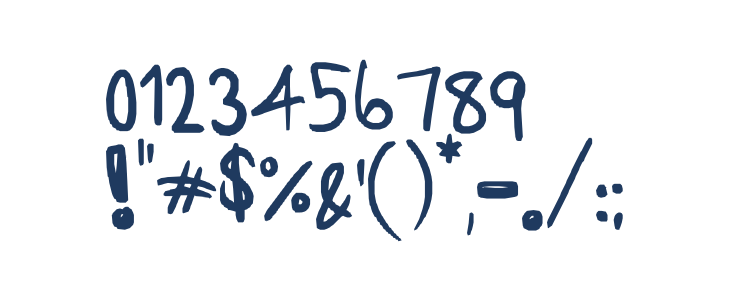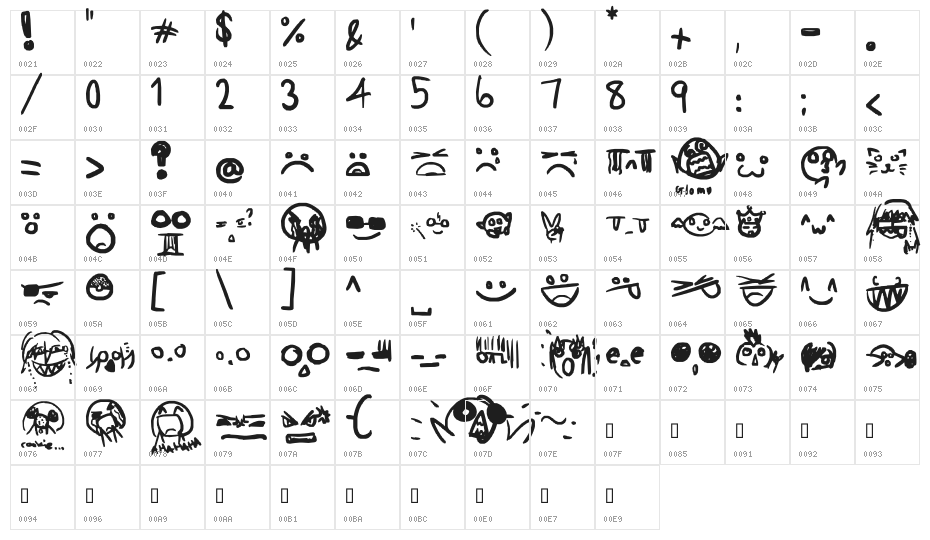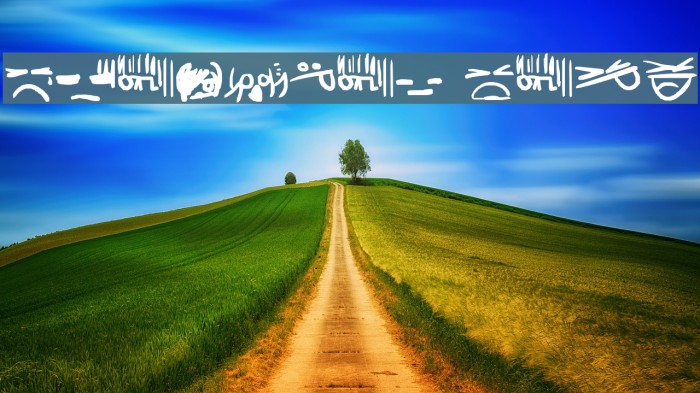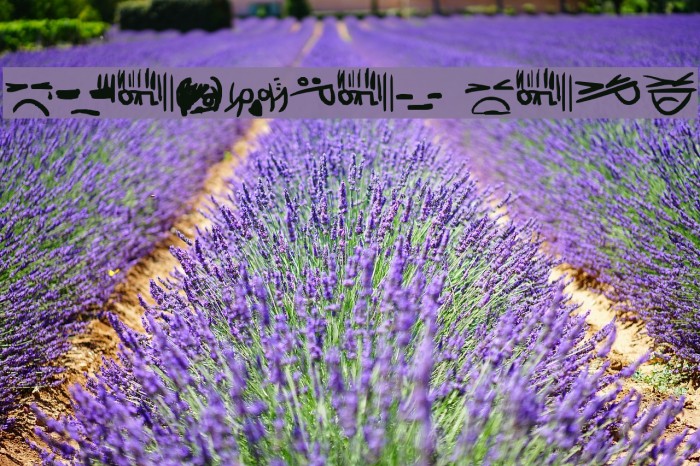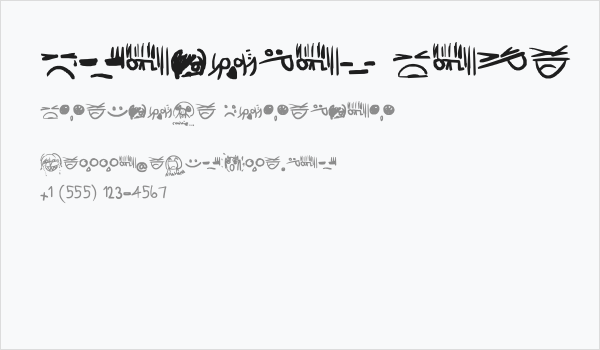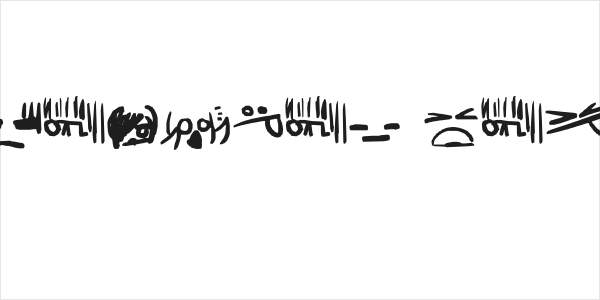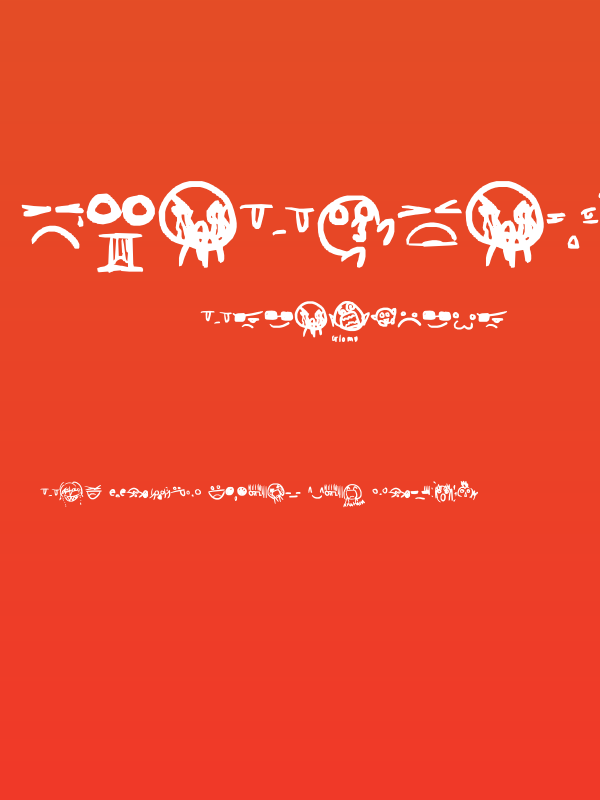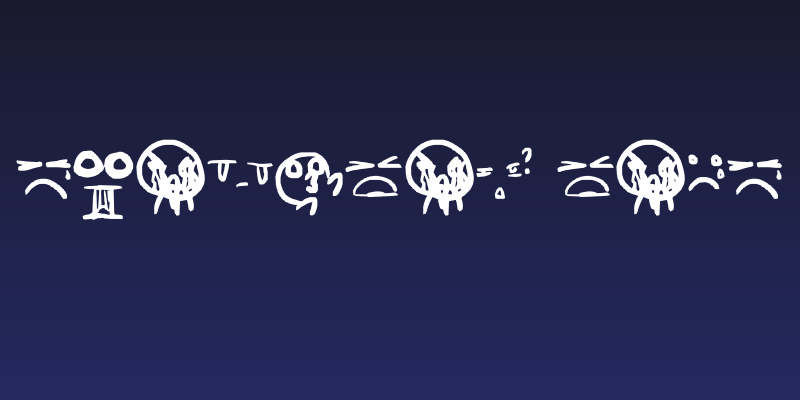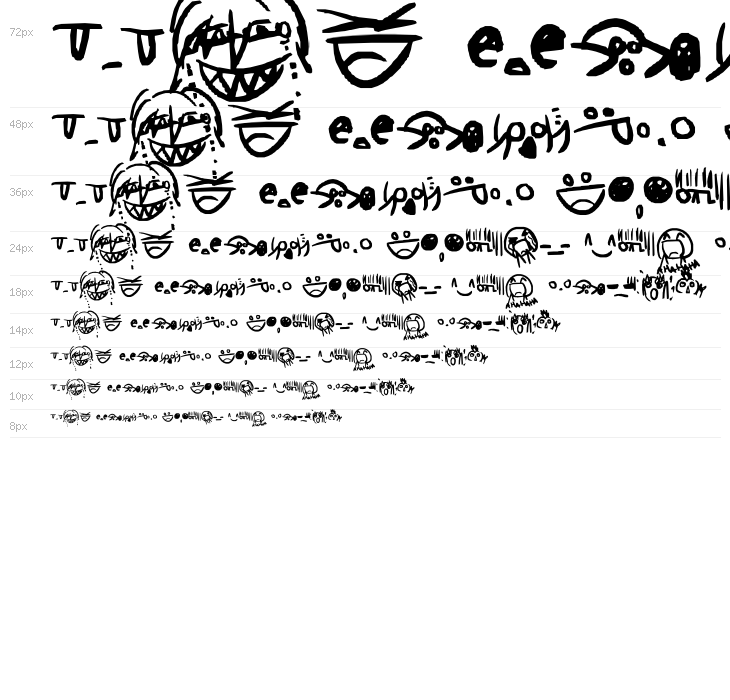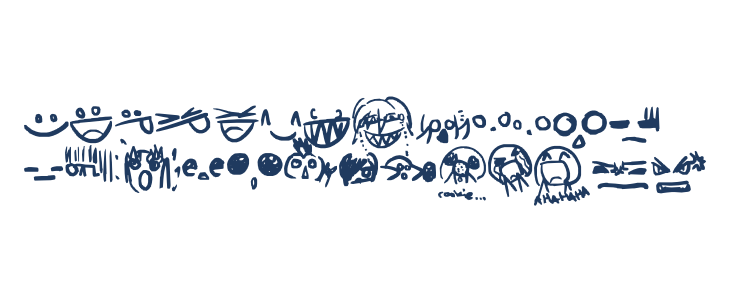
Emoticon Code Font
Emoticon Code Description
This is not a traditional font but rather a collection of emoticons and symbols that resemble a playful and expressive style. Each character is represented by a unique emoticon, showcasing a variety of emotions and expressions. The design is whimsical and artistic, with a hand-drawn appearance that adds a personal touch. The numbers and special characters are more structured but still maintain a casual, informal vibe. This set is perfect for creative projects that require a fun and engaging visual element.
| Overall Style | Whimsical, Artistic, Playful |
| Use Case | Decorative elements, Creative projects, Informal communication |
| Proposed Projects | Ideal for creative projects such as comic strips, children's books, playful branding, or social media graphics where a fun and expressive style is desired. |